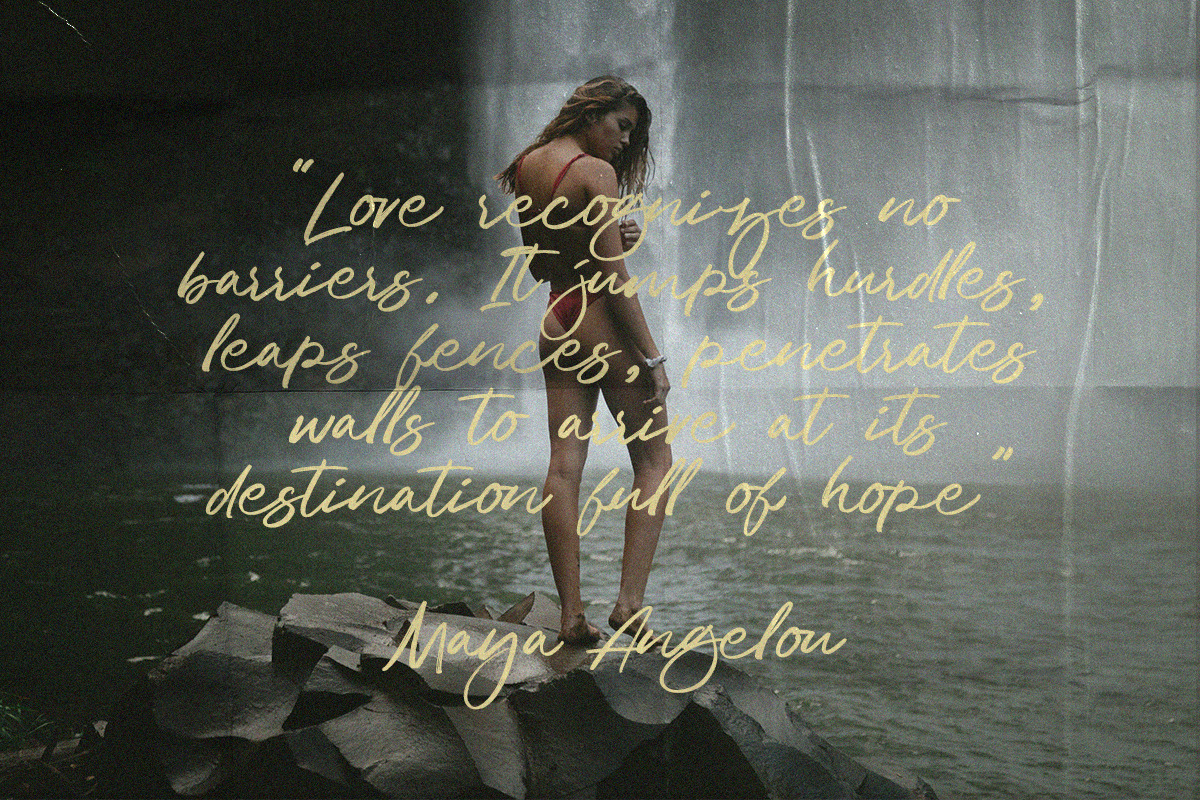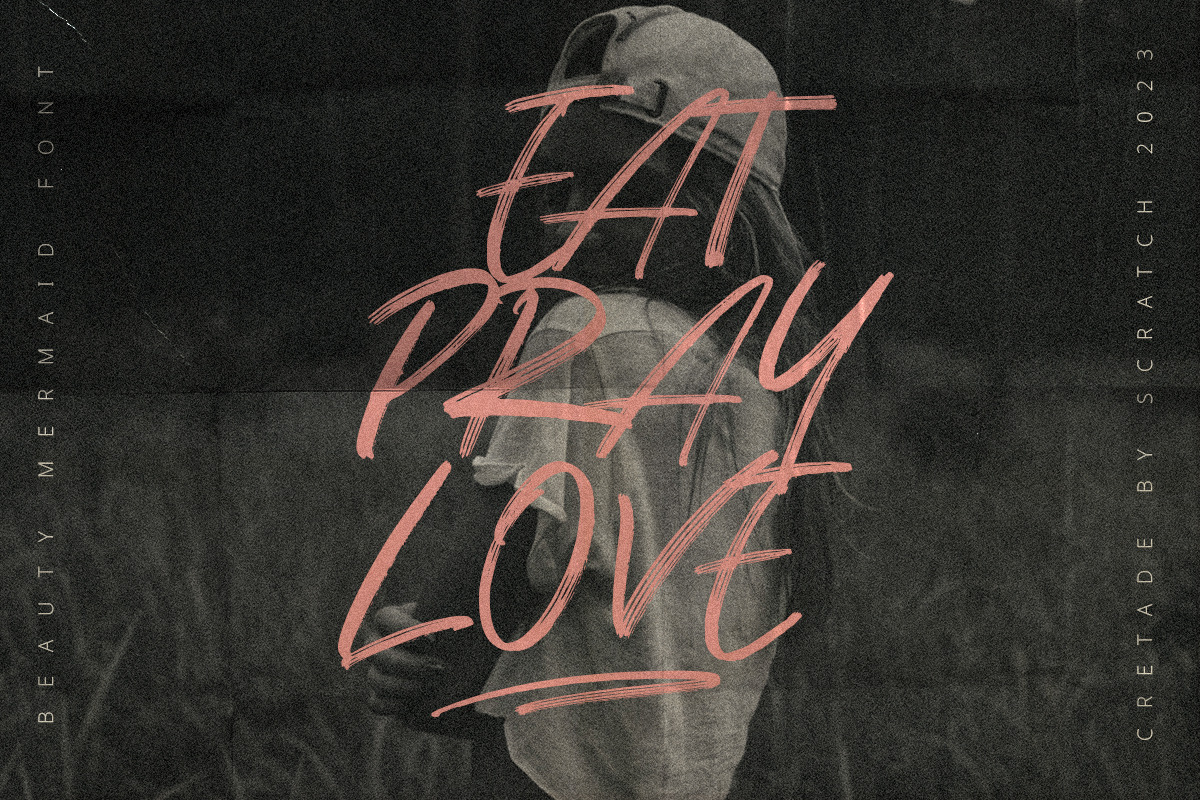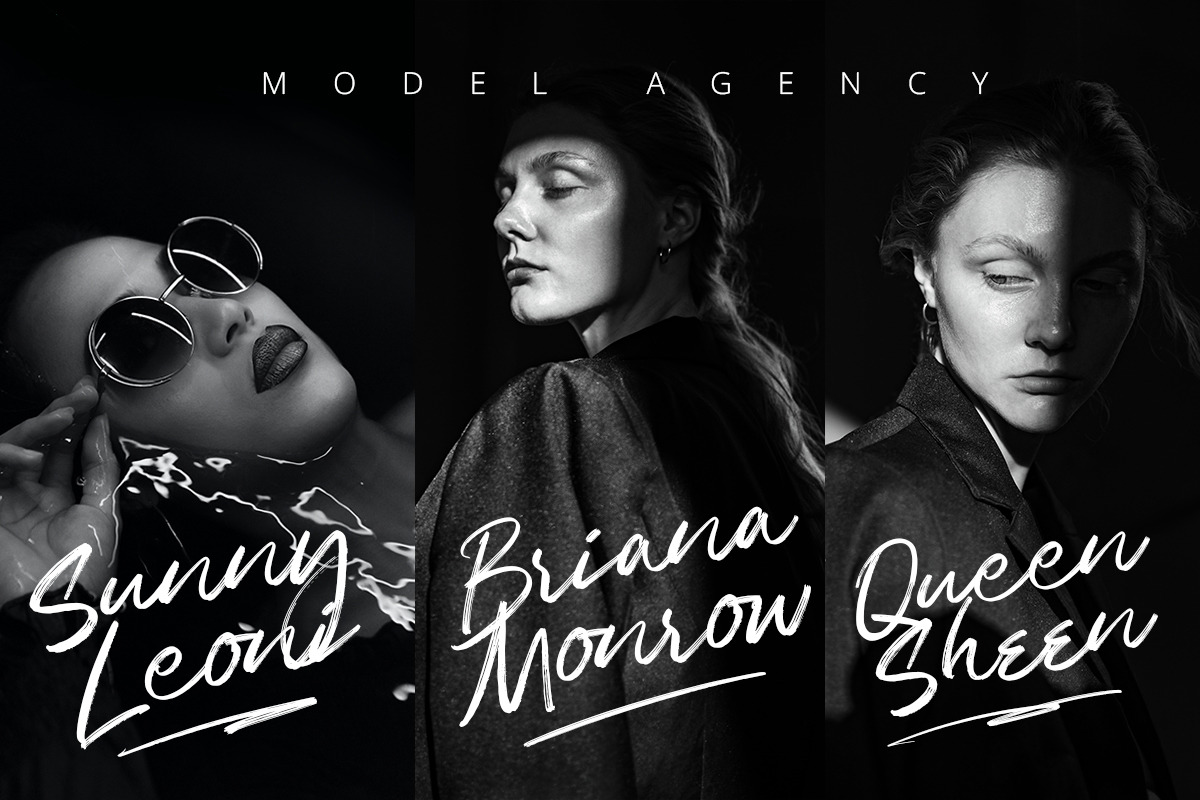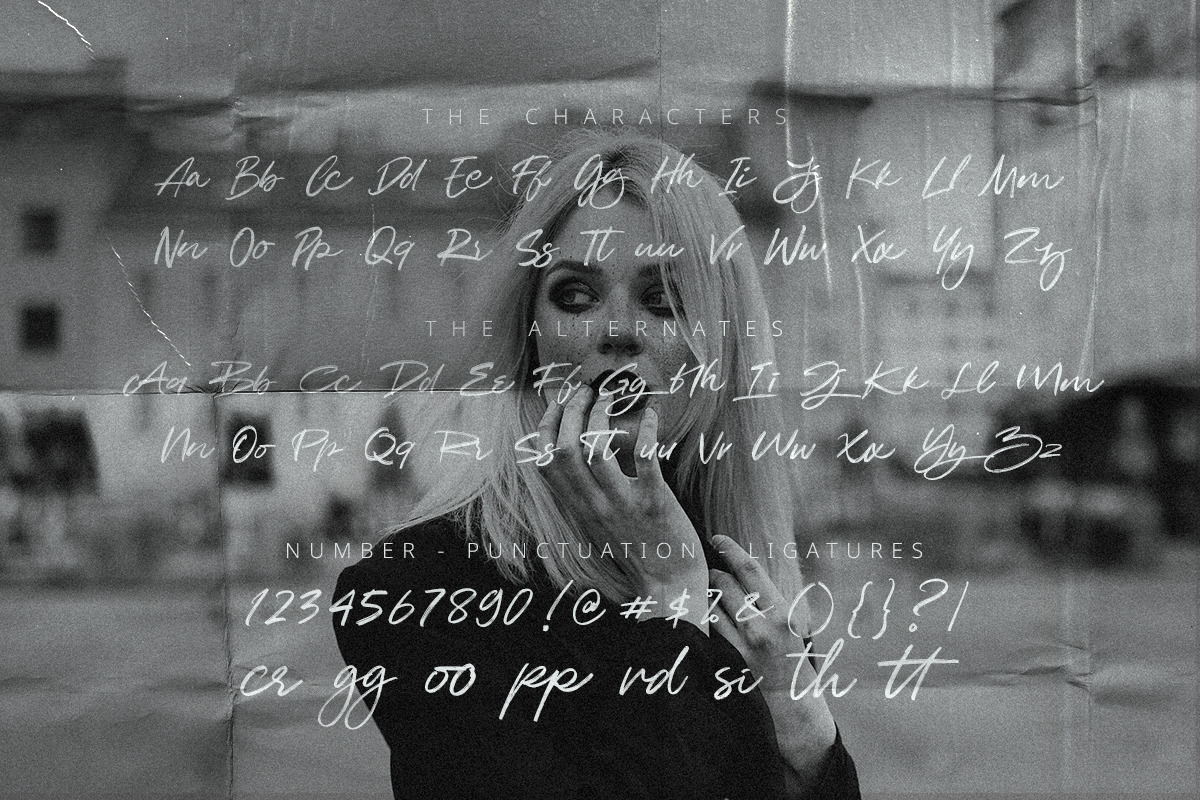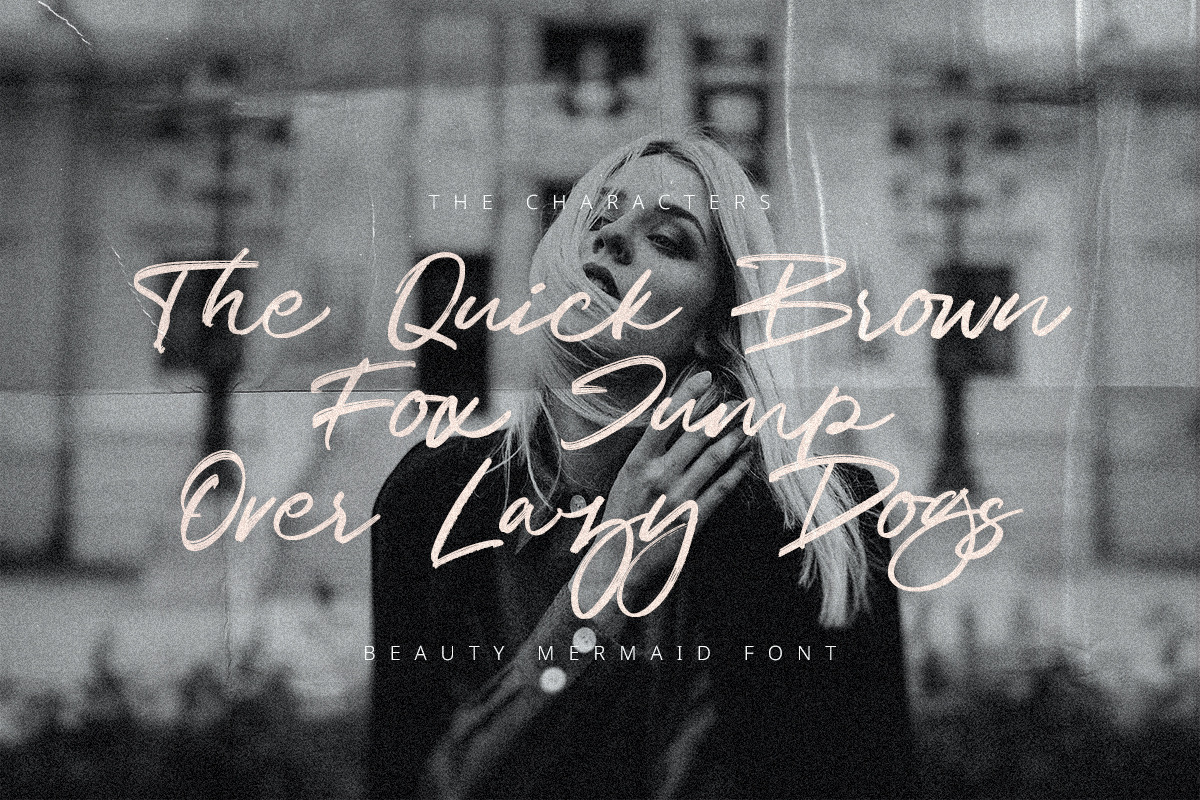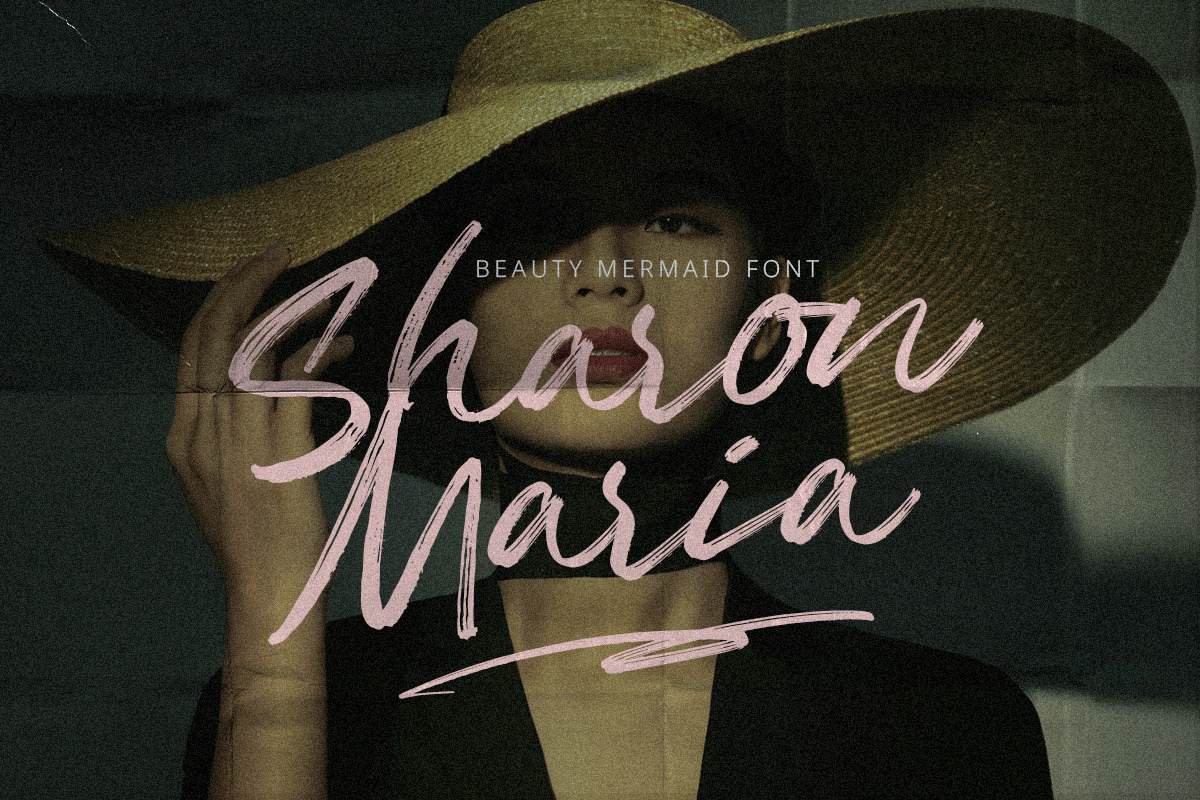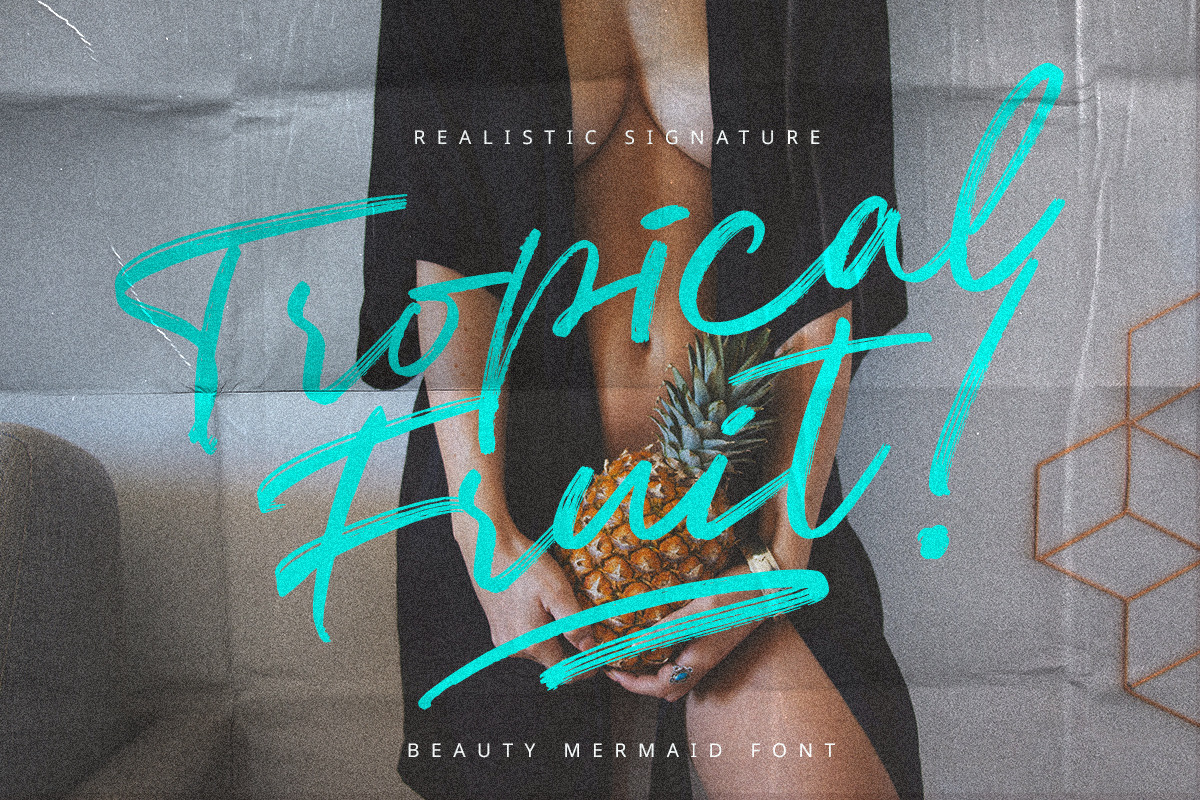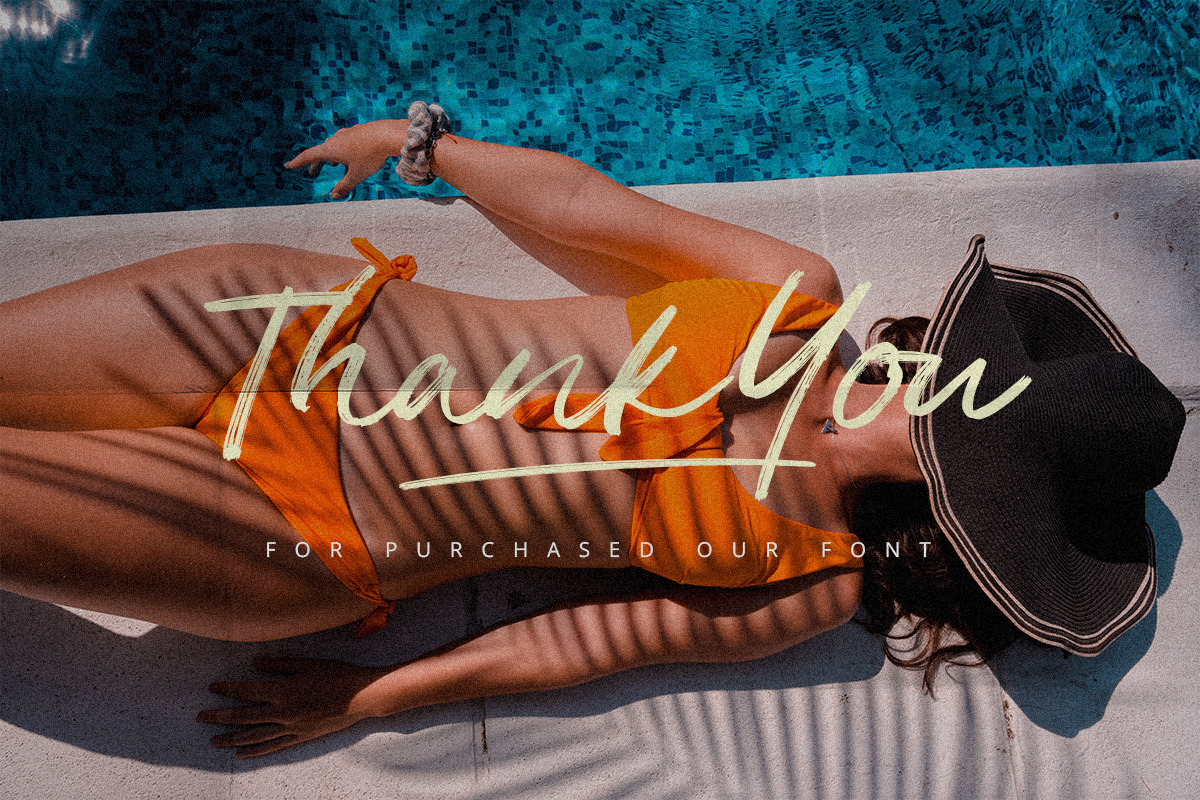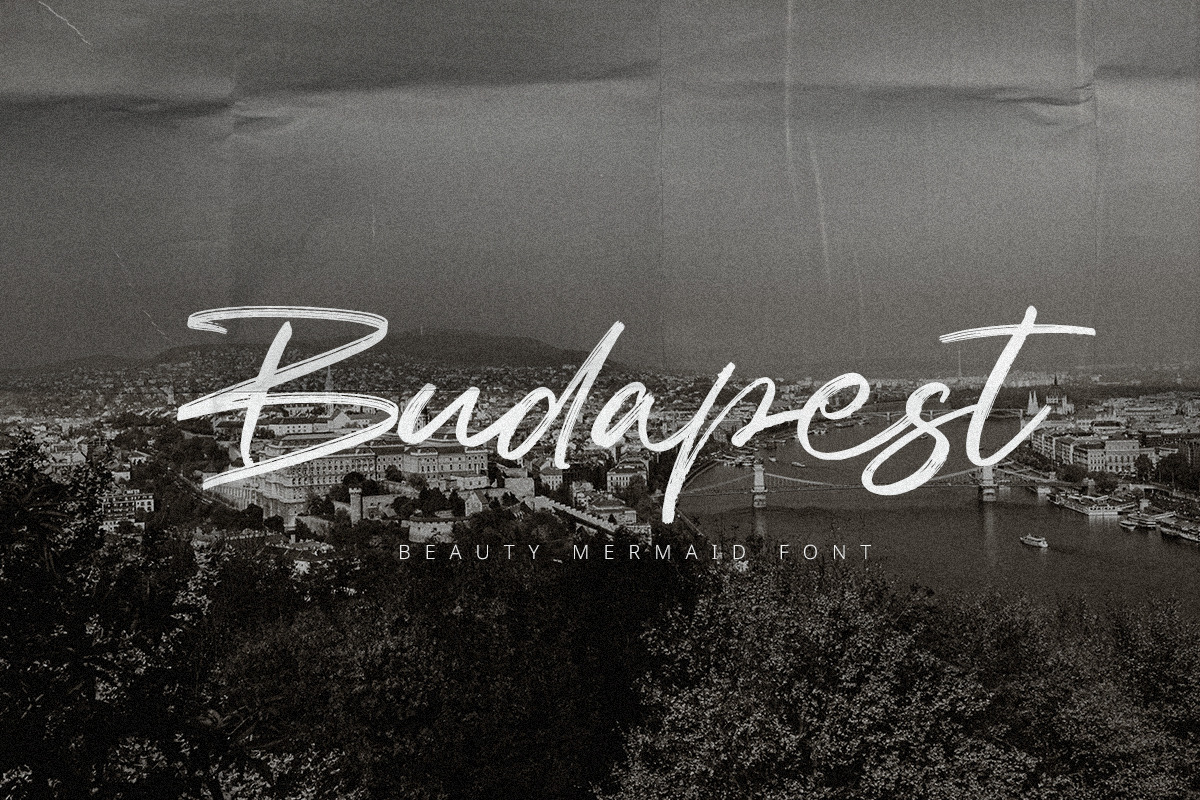
Beauty Mermaid | Signature Script
Introducing Beauty Mermaid script! It's a modern and beautiful script font with texture brushed ink style. It's highly recommended for you who want to make some designs with a texture like a realistic signature style. This font will work for invitation design, logos, wedding invitations, posters, packaging, book cover title, quote, social media post, etc. Open your Opentype features using the script font to use the ligatures and swashes. Also, this font includes alternates for uppercase and lowercase characteristics.